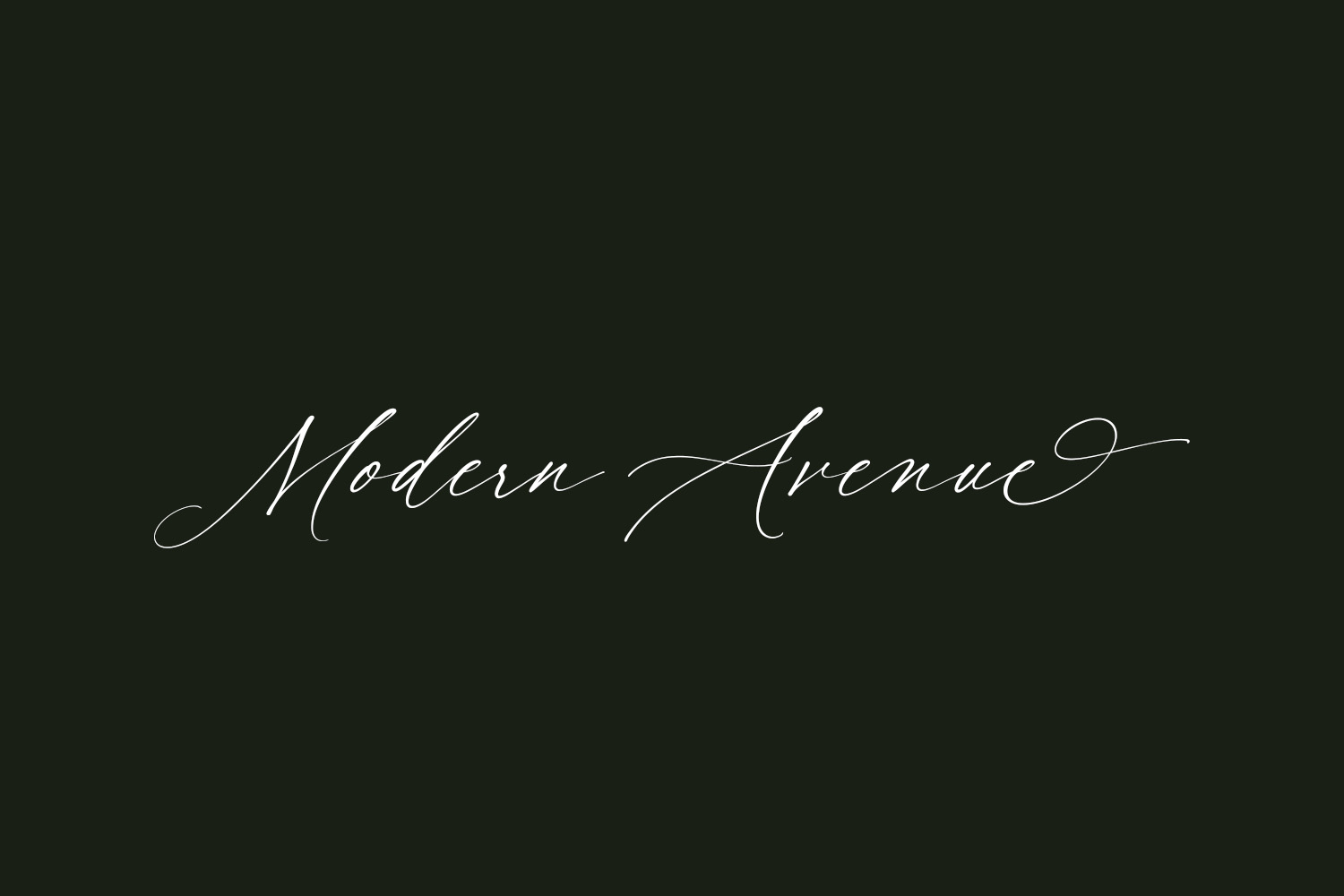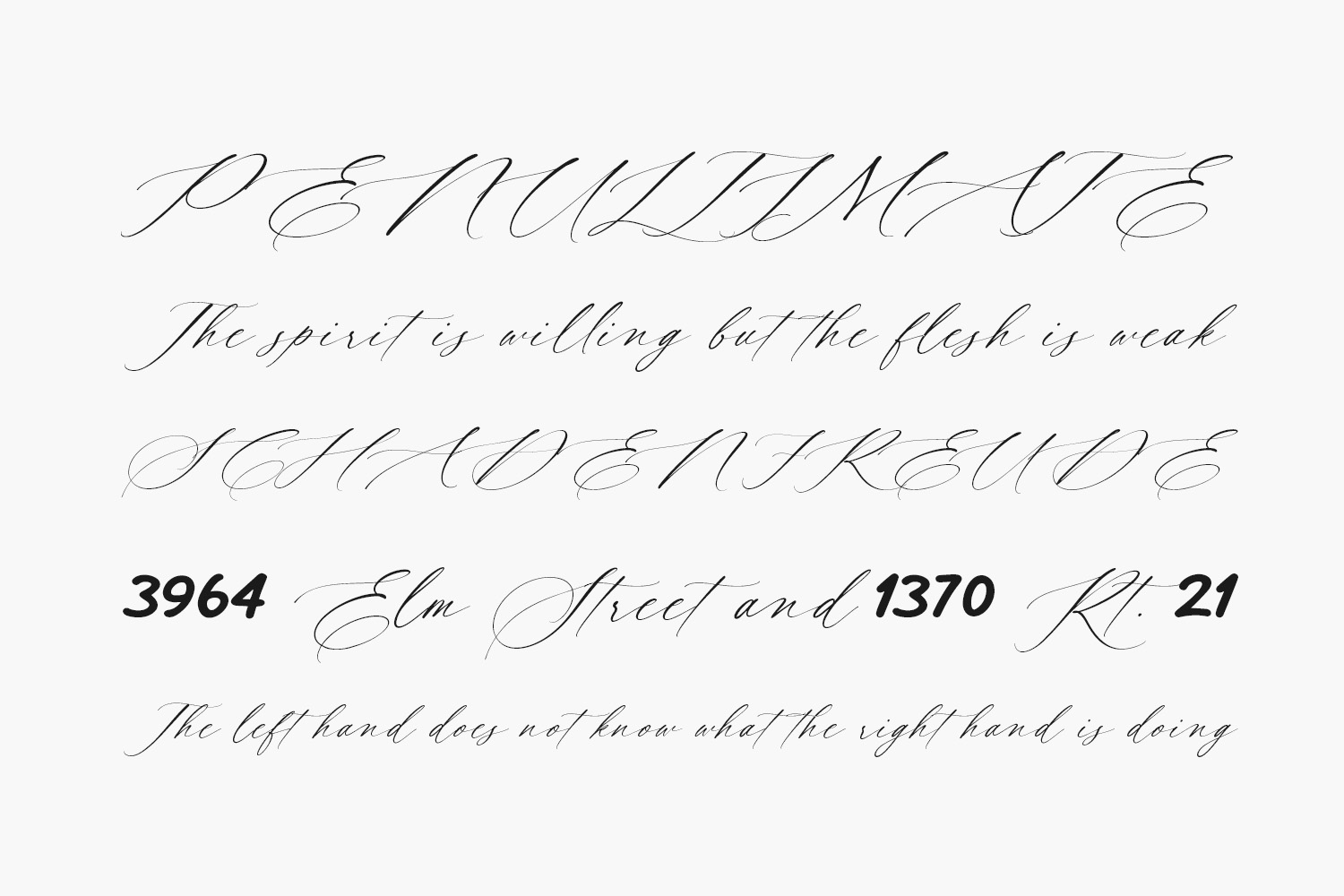
Experience the epitome of elegance with Modern Avenue Free Font. Its intricate and graceful details, coupled with refined letterforms, emanate a sense of luxury and sophistication. The clean lines and exceptional legibility make it an ideal choice for high-end branding, packaging, and premium design applications. Elevate your projects with a touch of timeless sophistication, courtesy of this font’s refined charm. Modern Avenue Free Font is free for personal use only. Please purchase the full version for commercial use.
Designed by Lunas Type